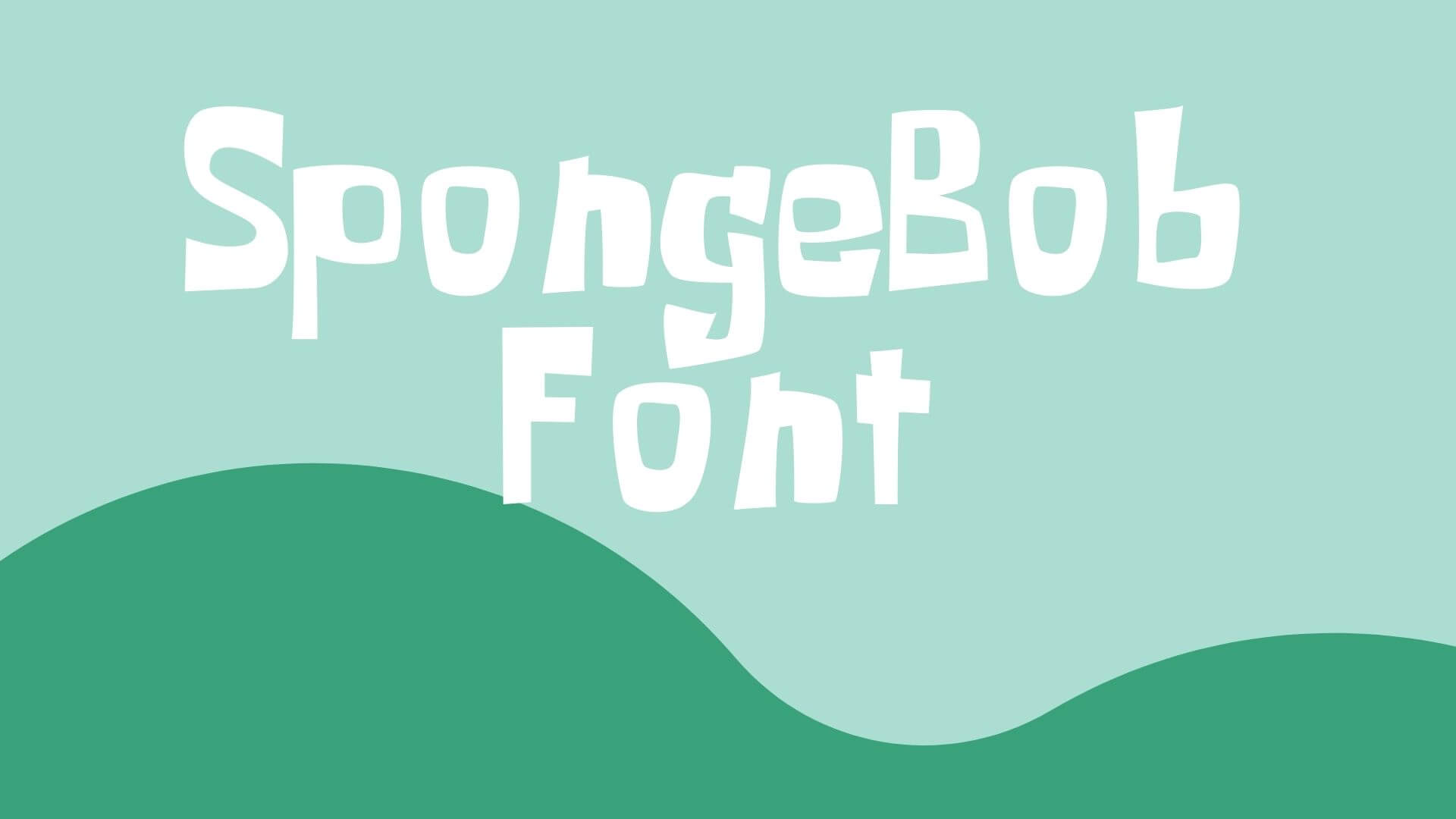
Spongebob Font Family is a logo-based design that draws its inspiration from the logo of the well-known animated television series SpongeBob, influencing its style.
This typeface provides the designs with a clean texture because all the styling of this typeface is handmade and you can pair this with army font and all the weights are properly adjusted.
| Type | Fancy |
| Designer | Santa Gravita |